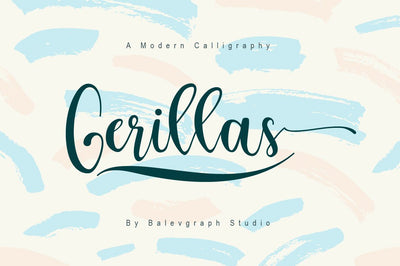
Gerillas - Calligraphy Script
Geriilas would perfect for photography, watermark, social media posts, advertisements, logos & branding, invitation, product designs, label, stationery, wedding designs, product packaging, special events or anything that need handwriting taste.
- Tons of glyphs (include Uppercase, Lowercase, Numerals & Punctuations, Stylistic Set)
- Ligature